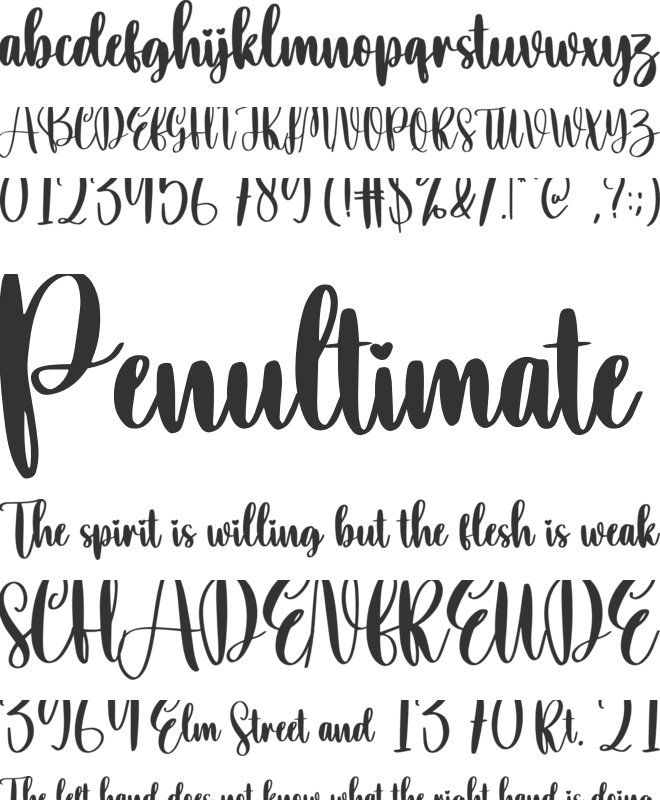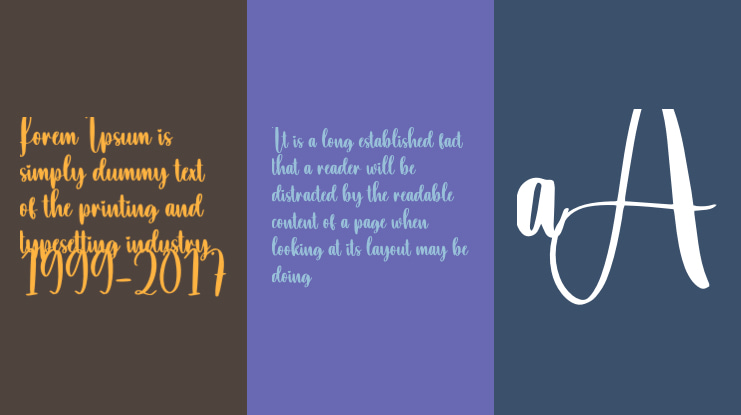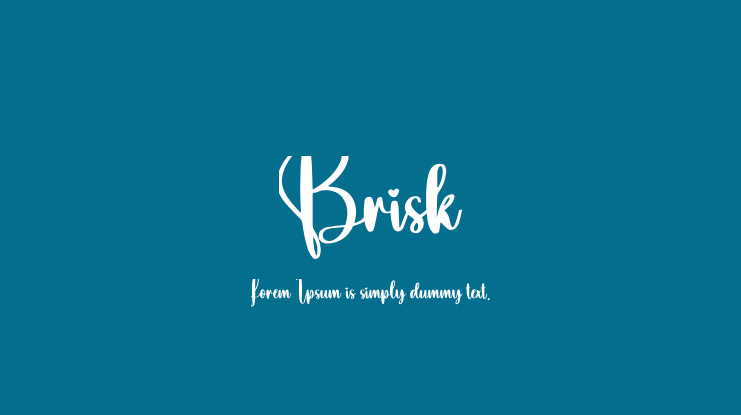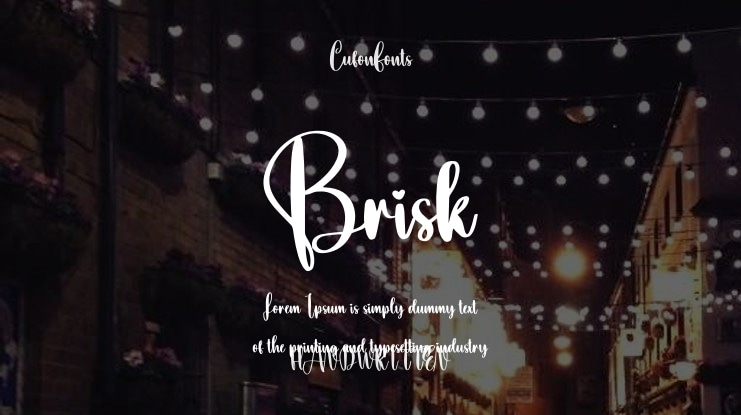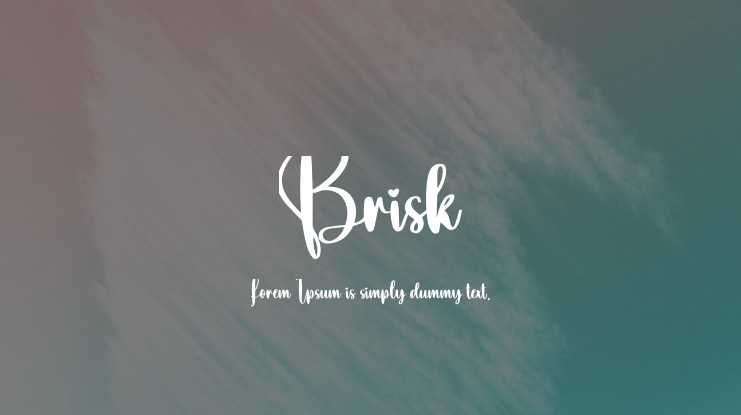
Our latest stylish fonts are ideal for showcasing on walls, creating wedding invitations, designing social media posts, logos, advertisements, product packaging, labels, photography, watermarks, invitations, stationery, and any project that requires elegant handwriting.